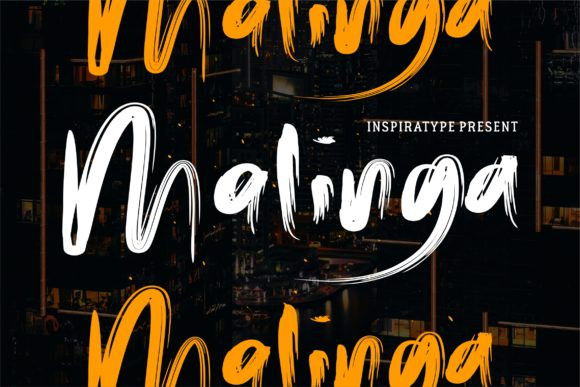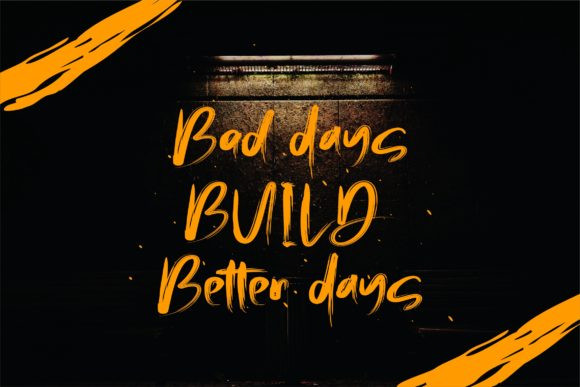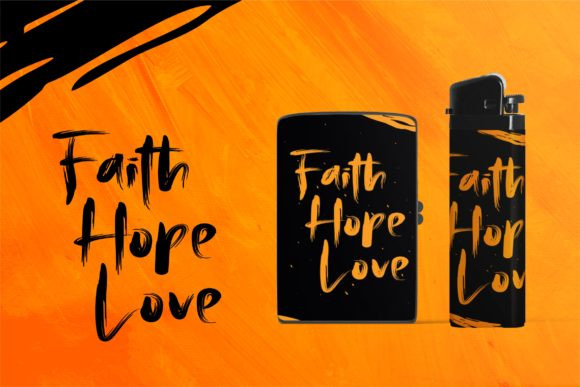
Malinga Font
Malinga is a brushed display font, defined by a rough texture. It fits any branding, product packaging, invitation, quote, t-shirt, label, poster, logo that you wish to create.